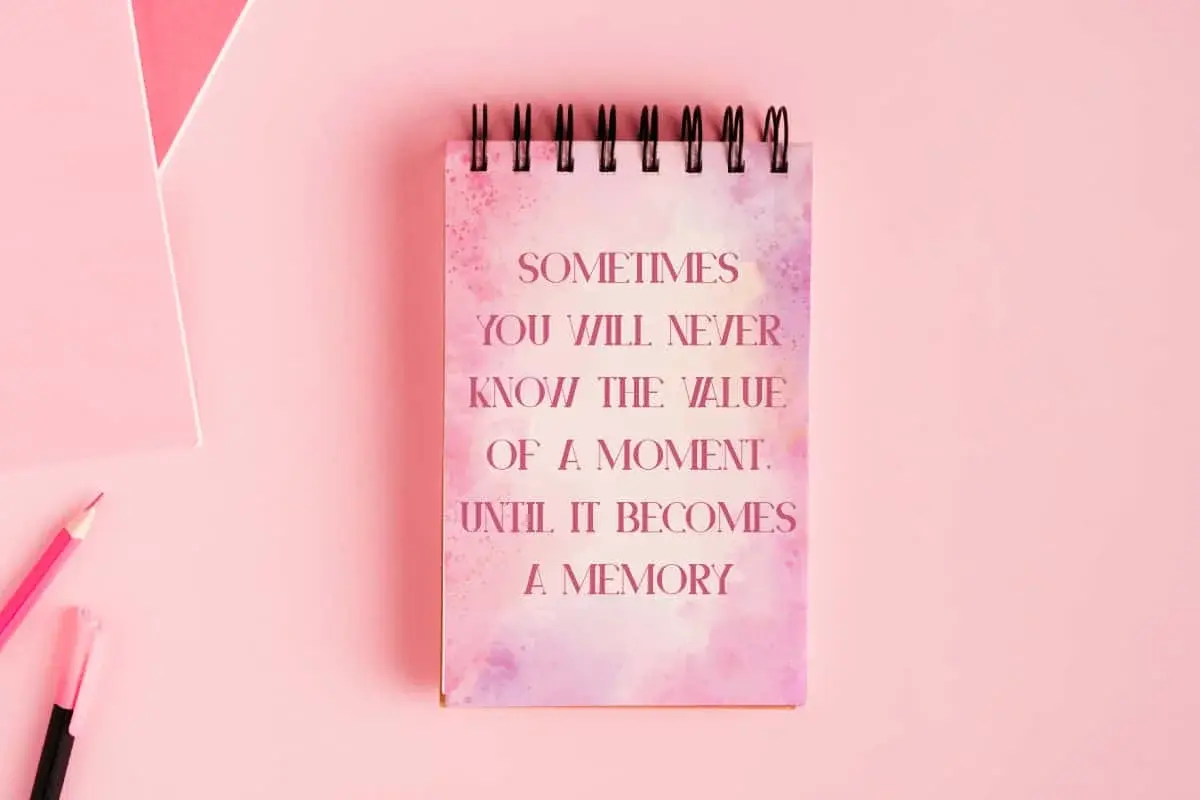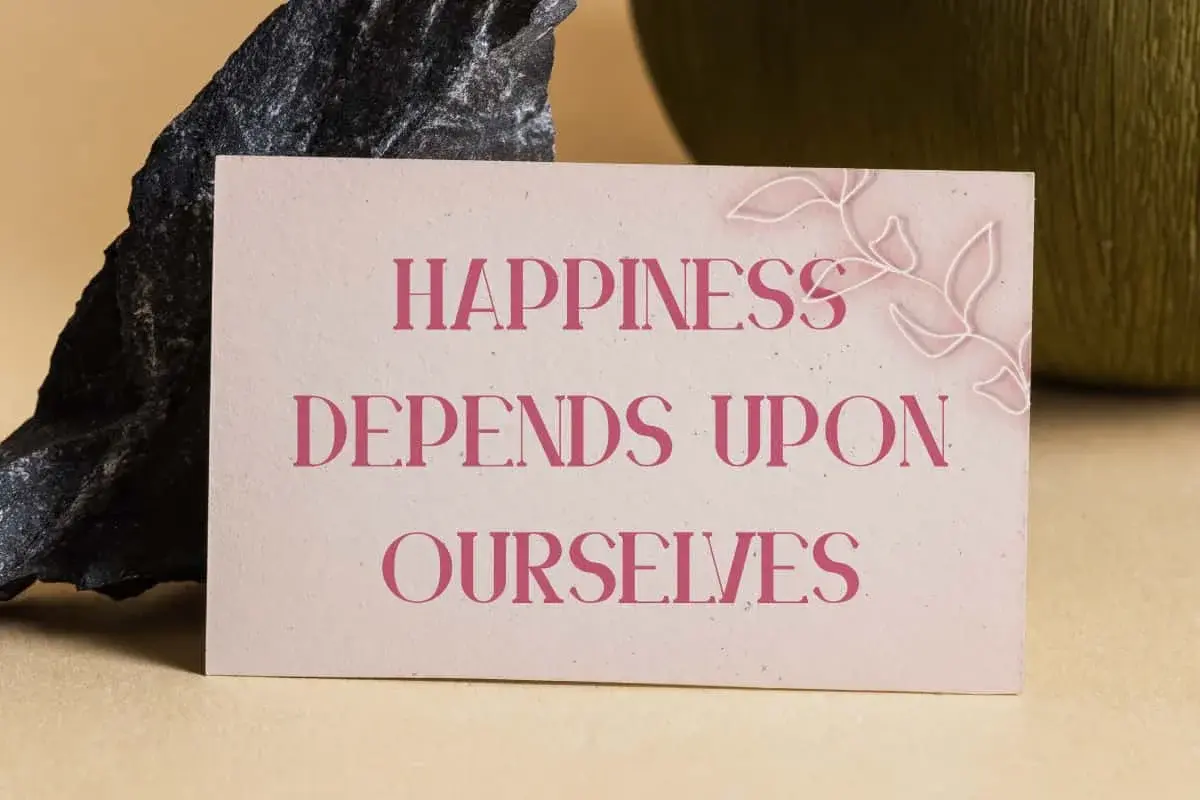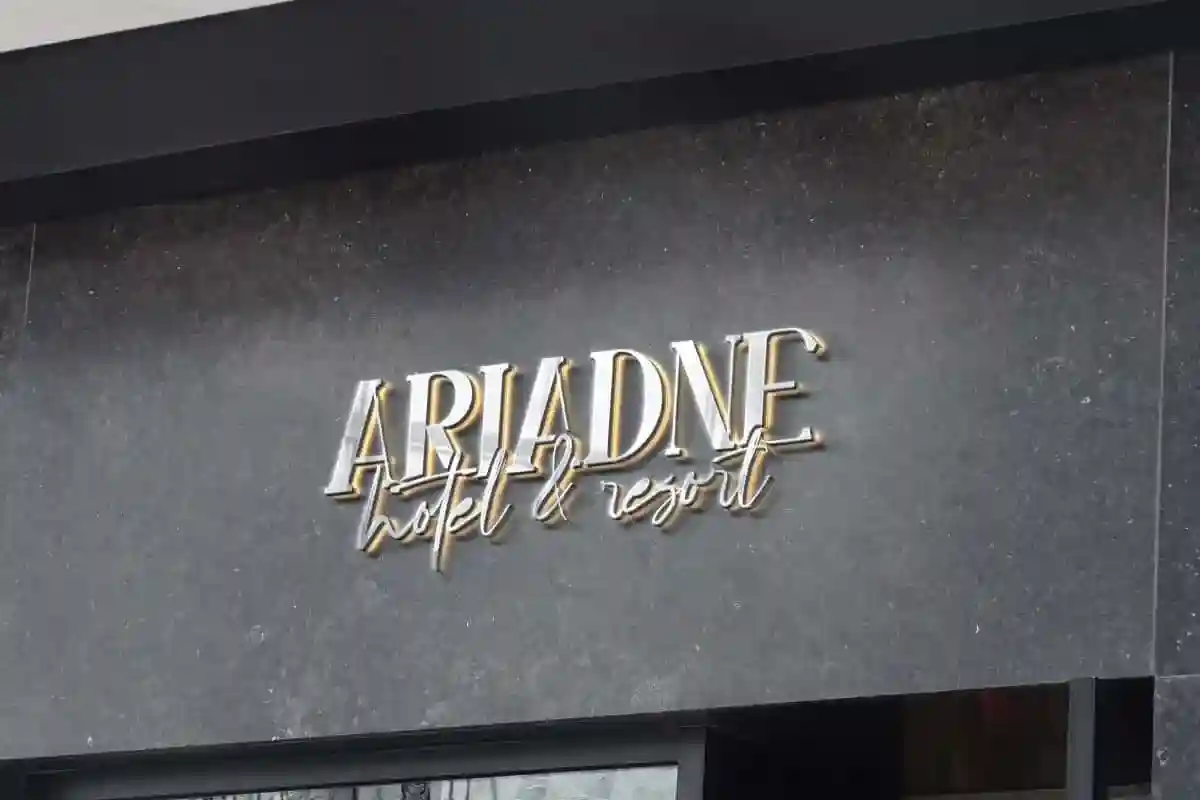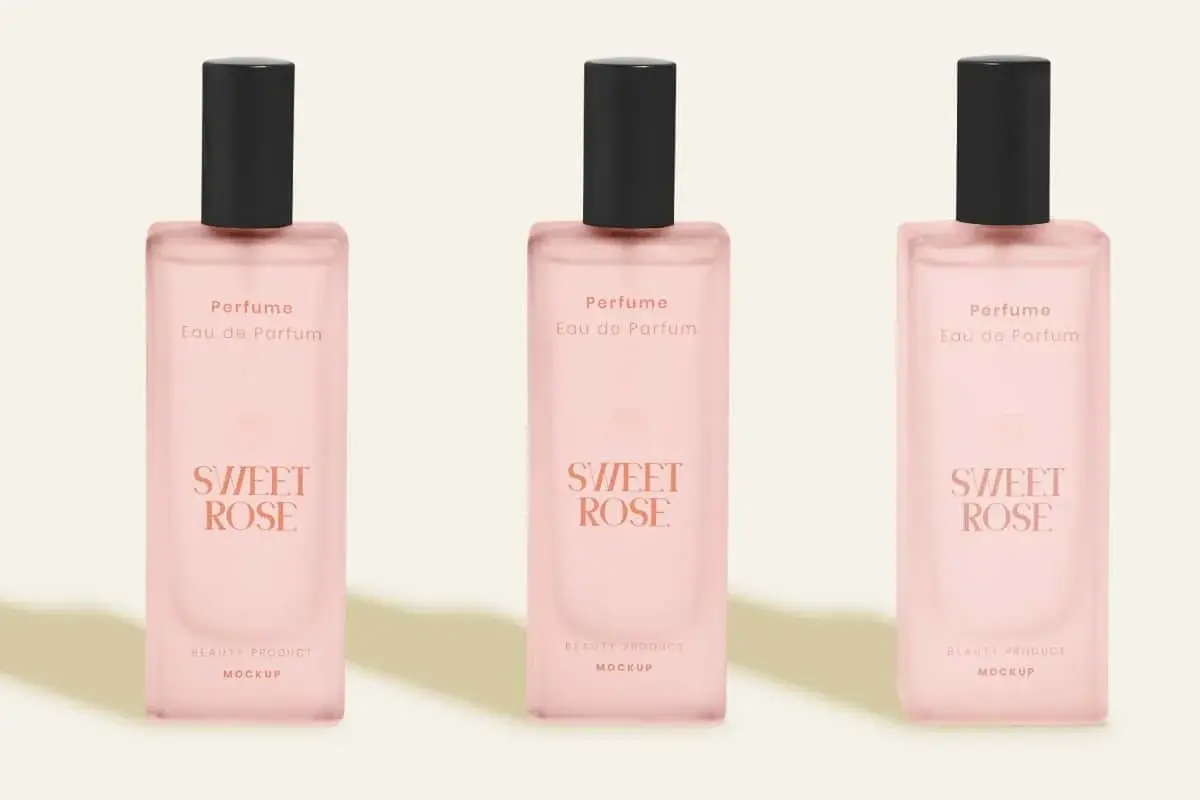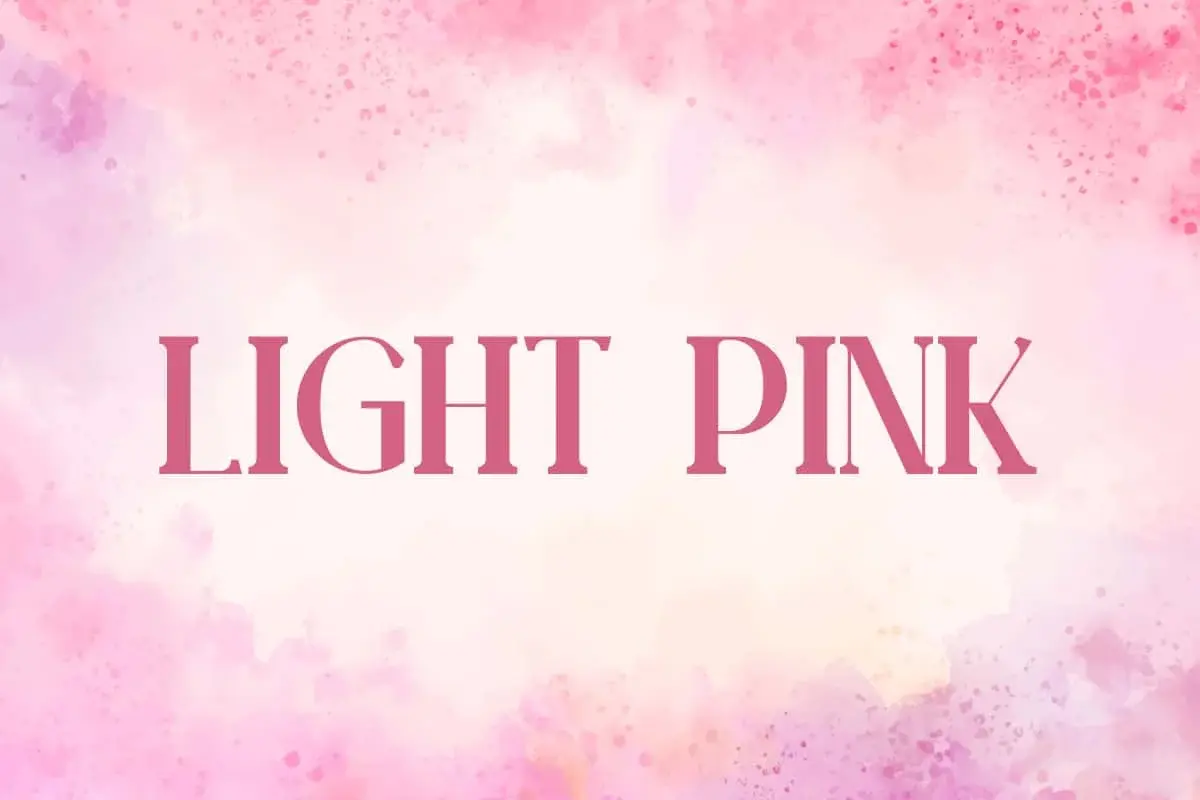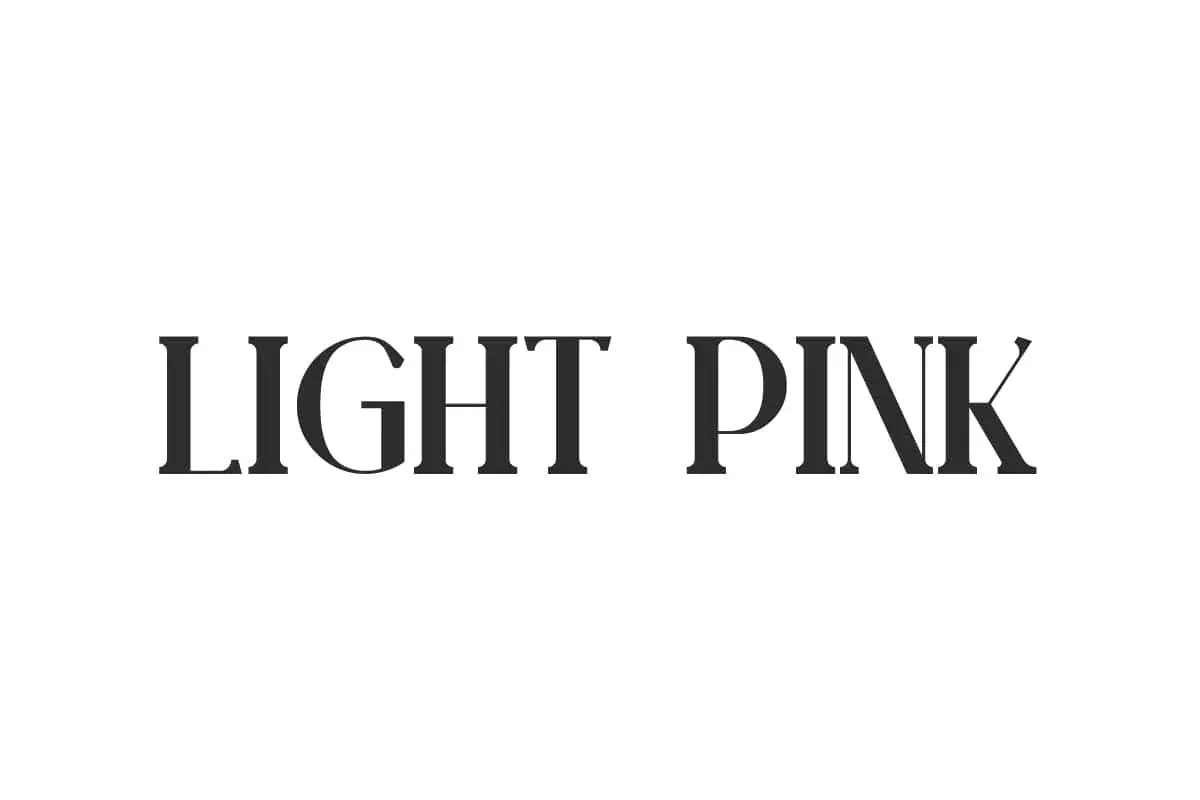
Light Pink Font
Light Pink Font is an elegant serif that combines a unique modern style but still has vintage look on it. This font maintains a balance between classic and modern typography.
Light Pink Font is an elegant serif that combines a unique modern style but still has vintage look on it. This type of font is very suitable for various needs, such as blogs, business cards, covers, headers, logos, mockup, notes, product packaging, quotes, signage, title, template, website, and many more.
Light Pink Font includes full set of ALL CAPS for Uppercase and Lowercase Basic Characters, Numbers, Punctuation, and Symbols. Made with high readability in a classy style. Create stunning masterpieces with this font! Suitable for accessories and gift, apparel, artist, beauty product, fashion, graphic design, handicraft, lodging, makeup brands, photography, publisher, spa salon, etc.